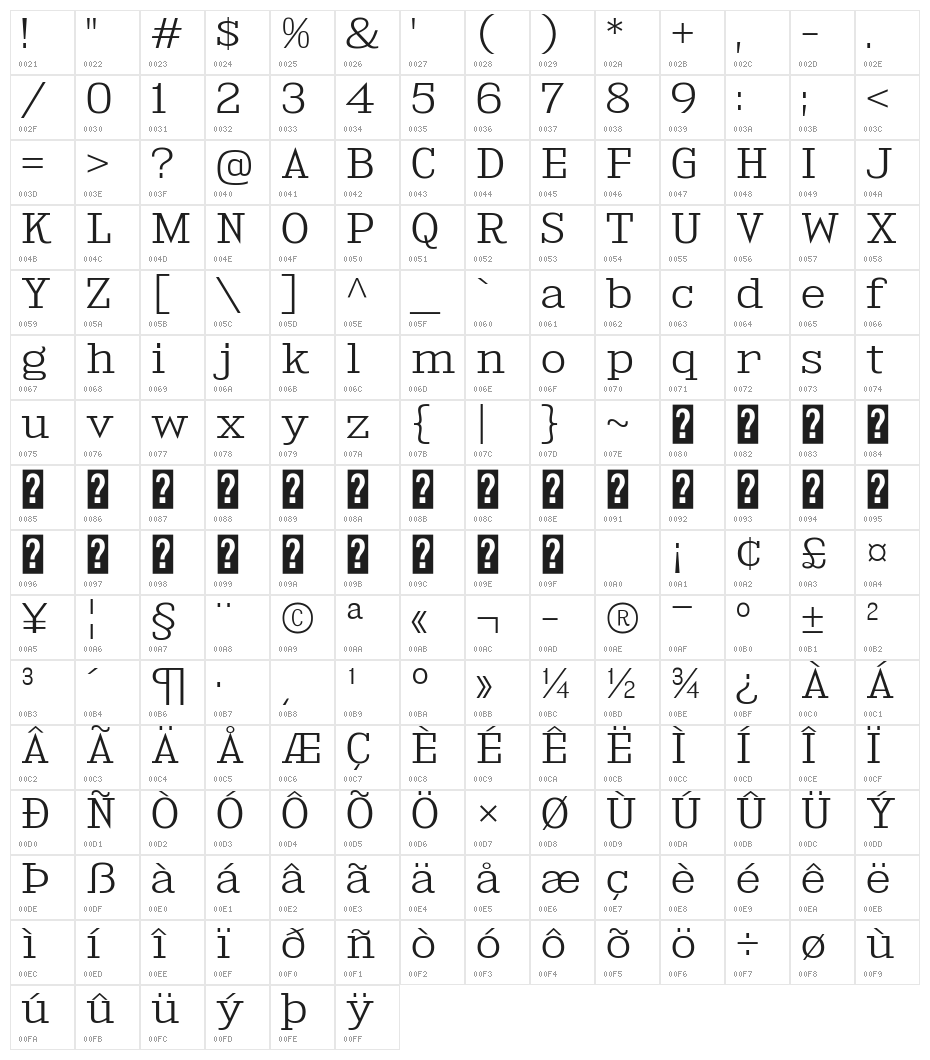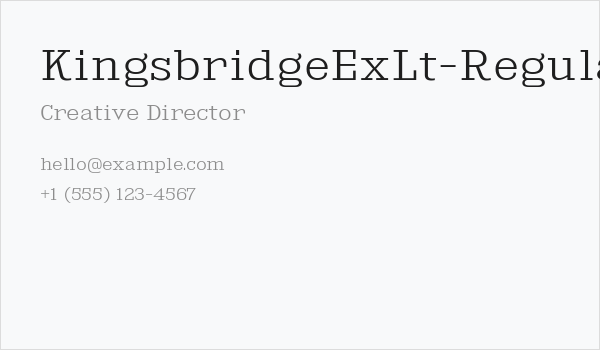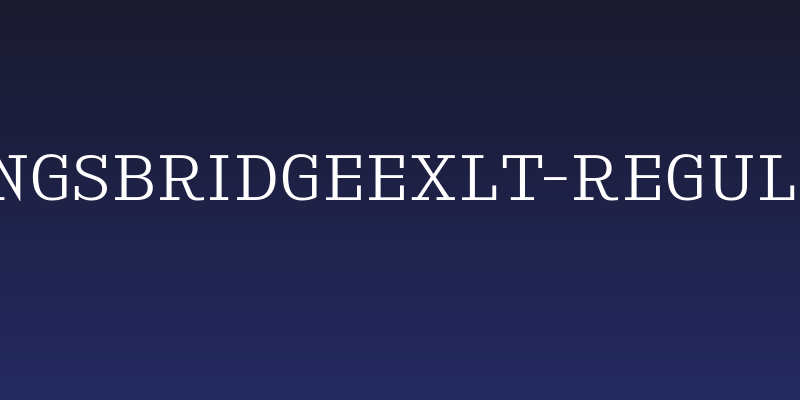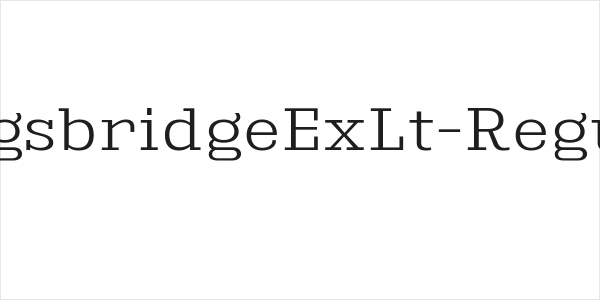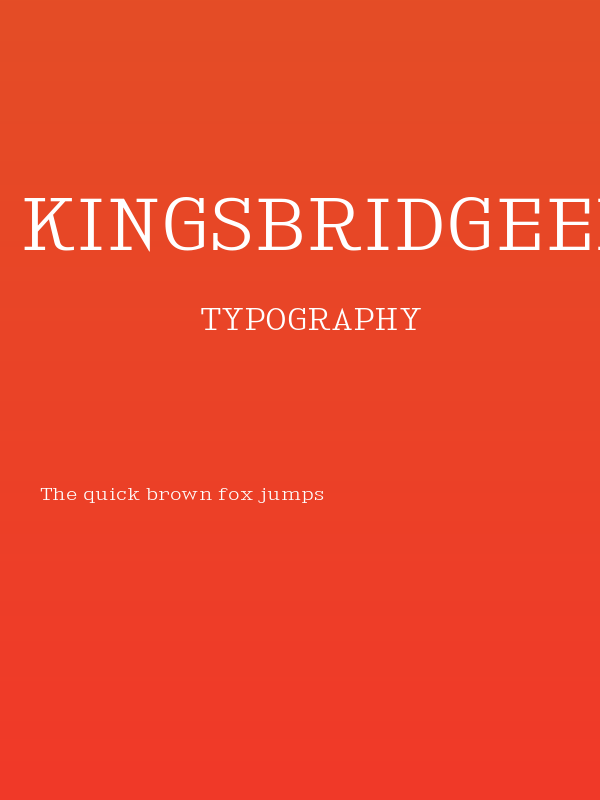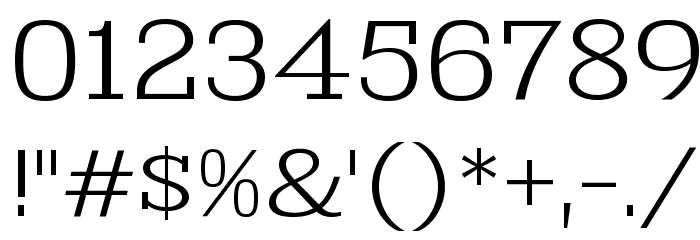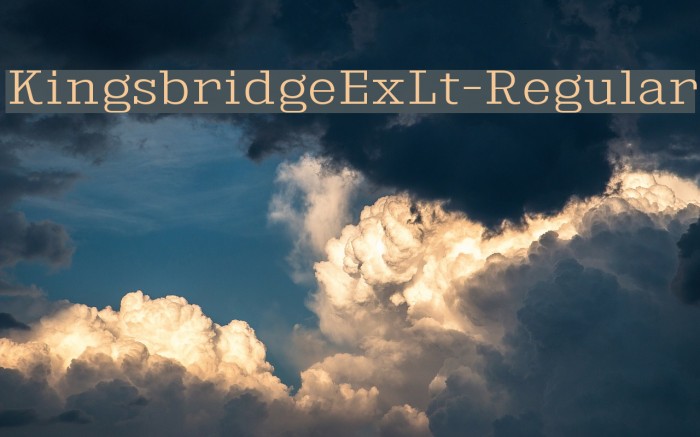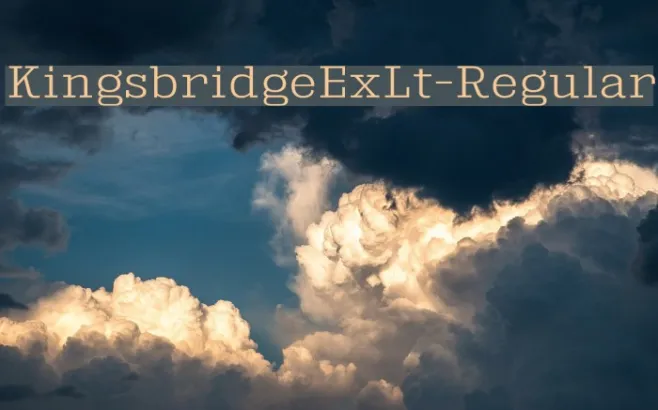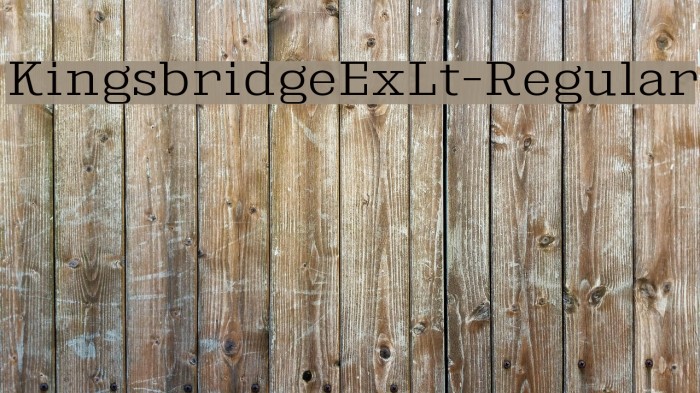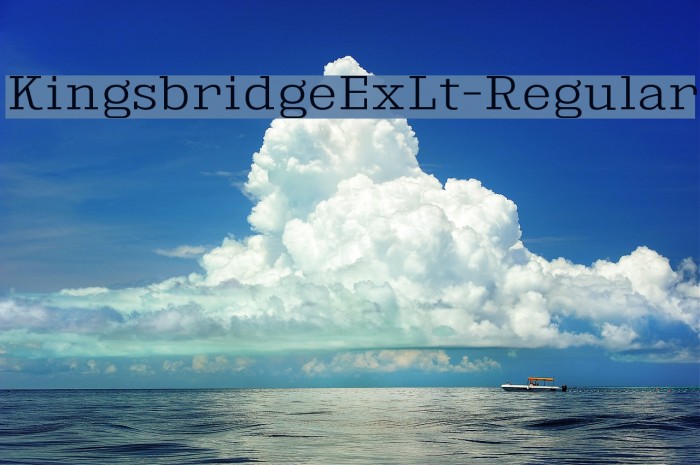
KingsbridgeExLt-Regular Font
KingsbridgeExLt-Regular Description
This font features a classic serif style with elegant and refined strokes. The characters are well-proportioned, with a slight contrast between thick and thin lines, giving it a sophisticated appearance. The uppercase letters are bold and commanding, while the lowercase letters maintain a smooth and harmonious flow. The numerals are clear and distinct, making them easy to read. Special characters are designed with the same attention to detail, ensuring consistency throughout the typeface. This font exudes a timeless quality, making it suitable for a variety of design applications.
| Proposed Projects | Ideal for editorial design, book covers, formal invitations, and branding projects that require a touch of elegance. |